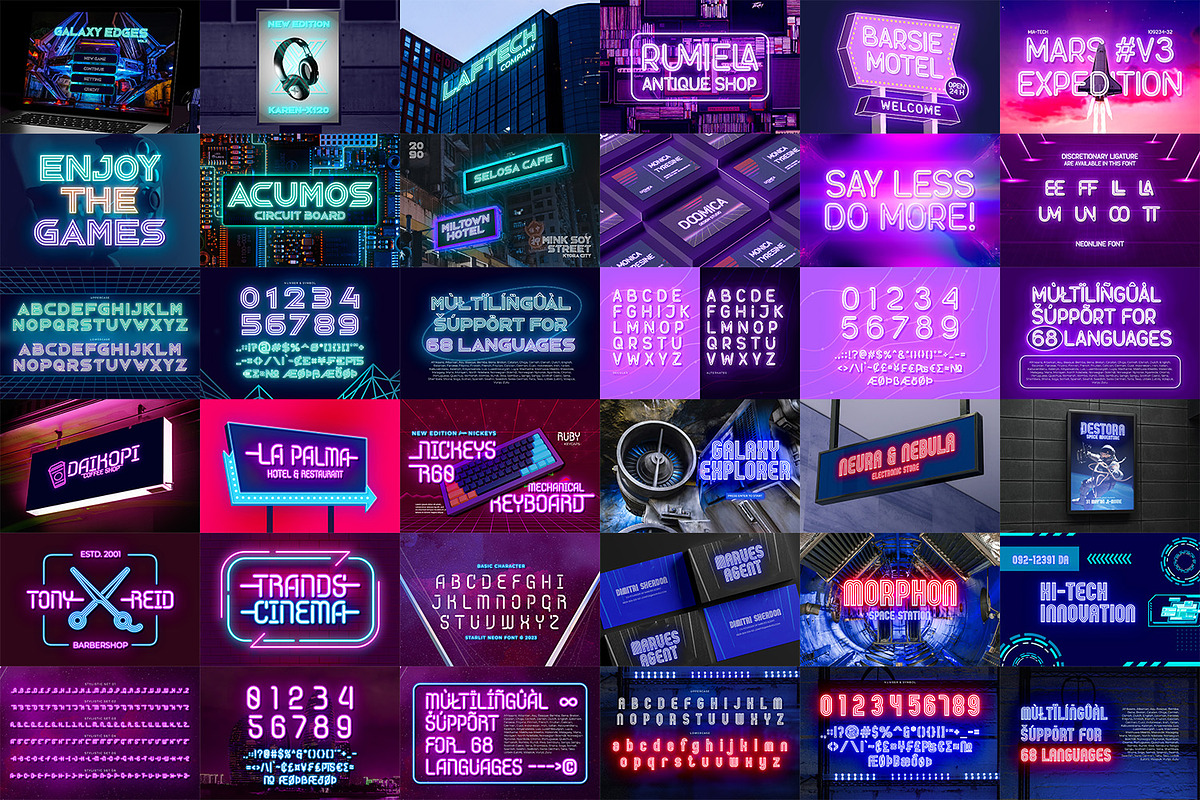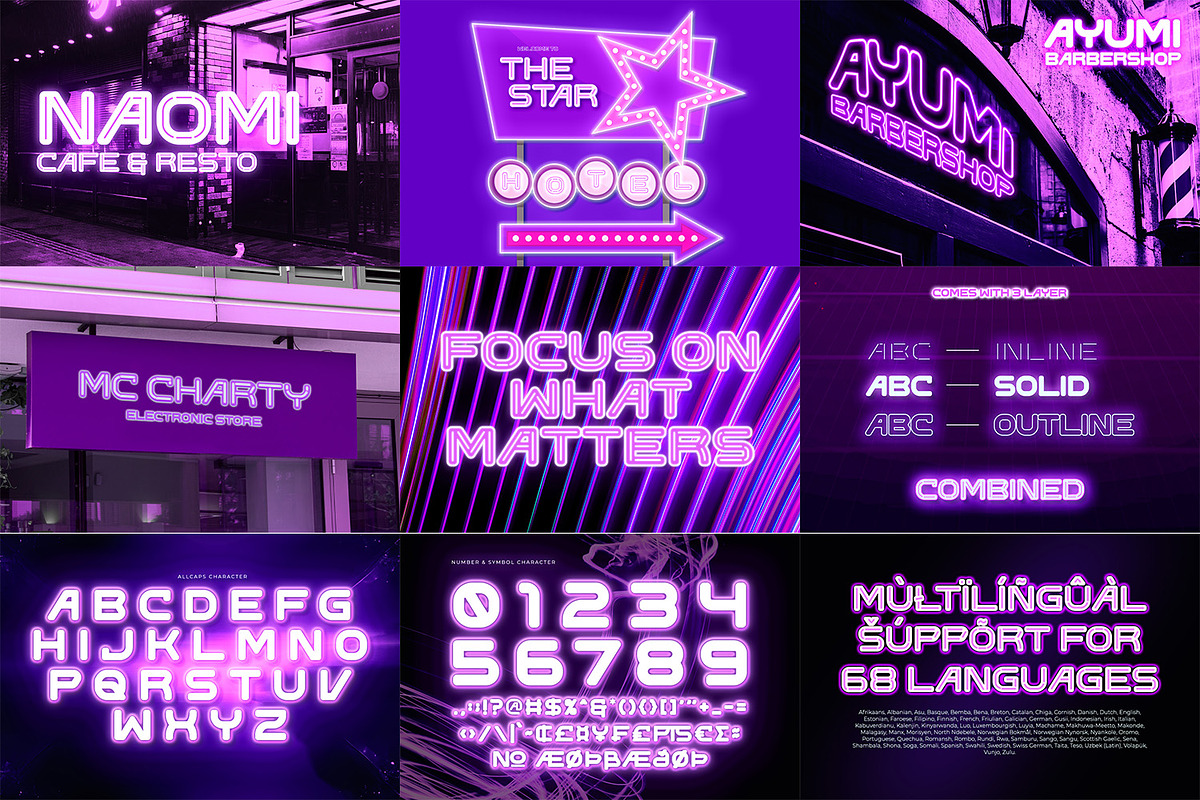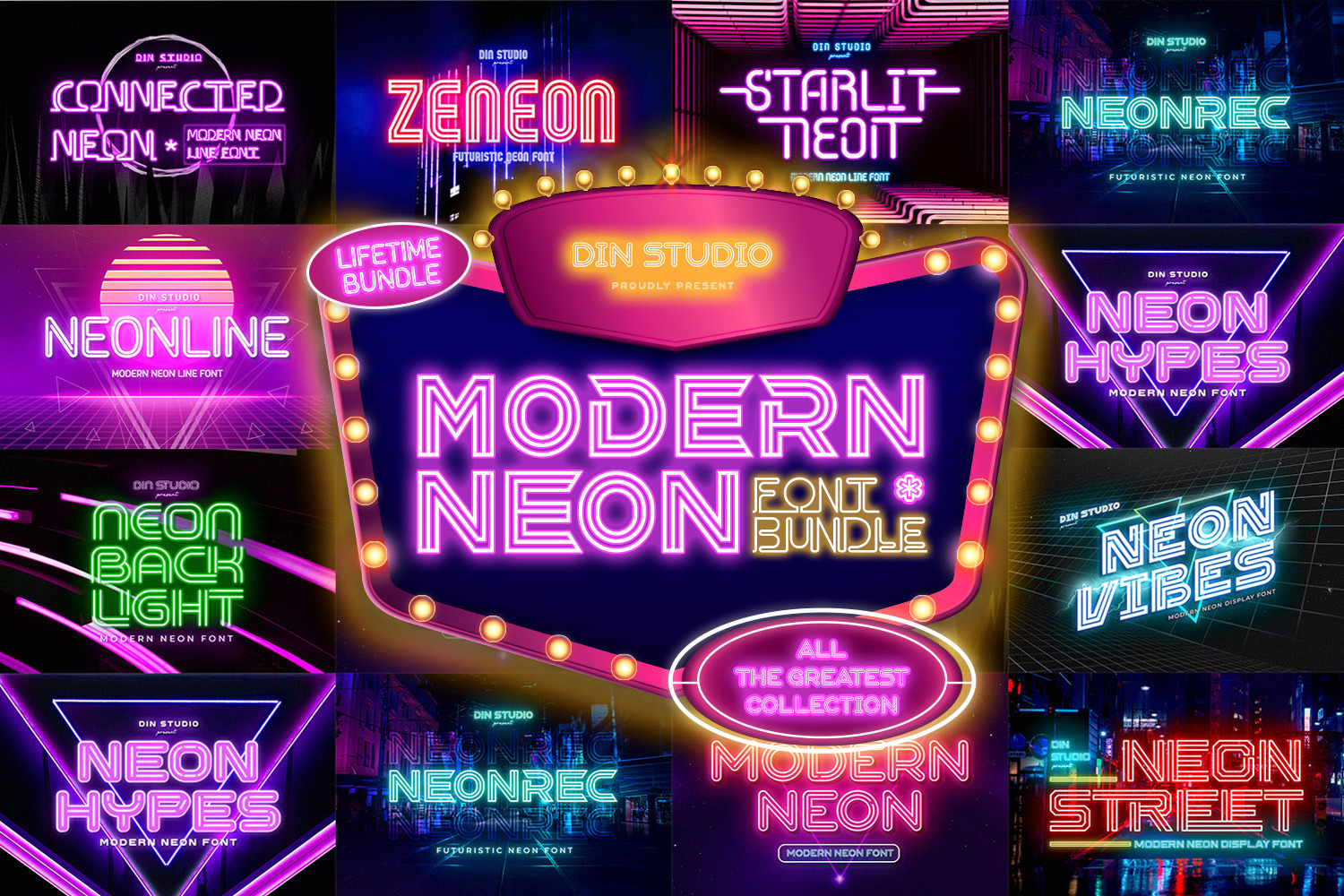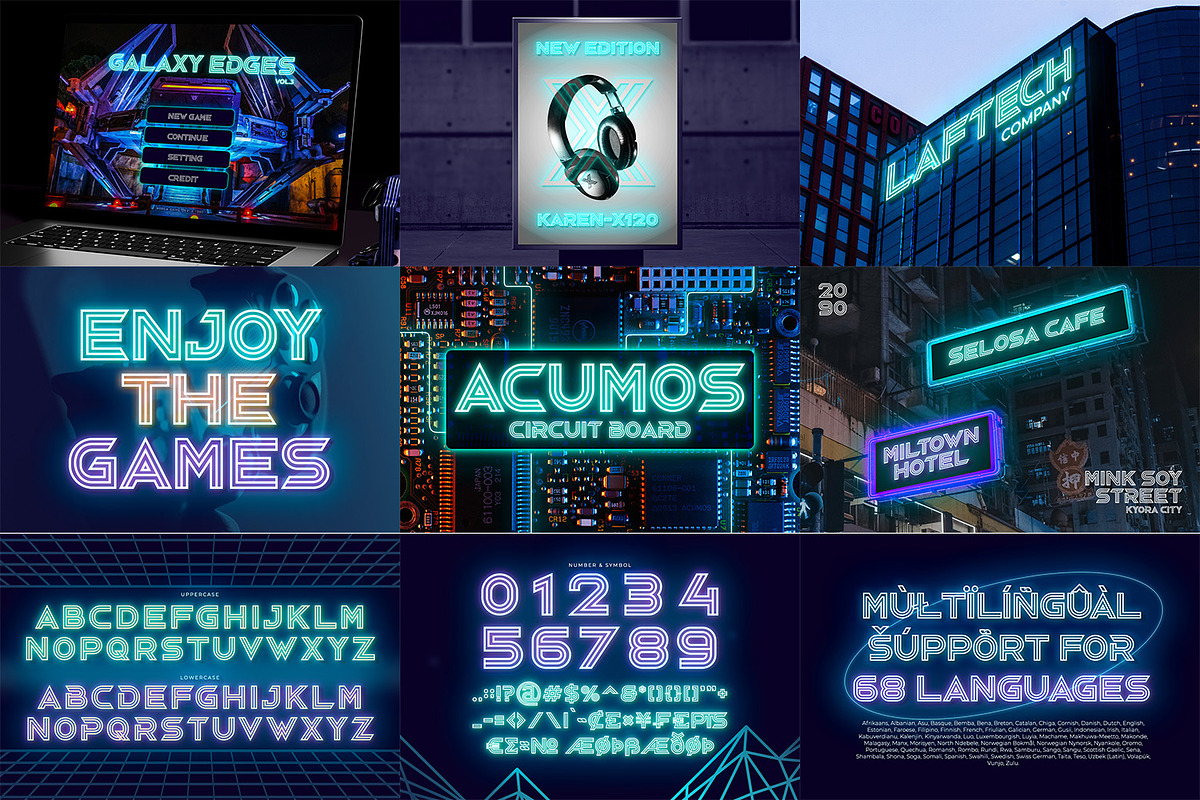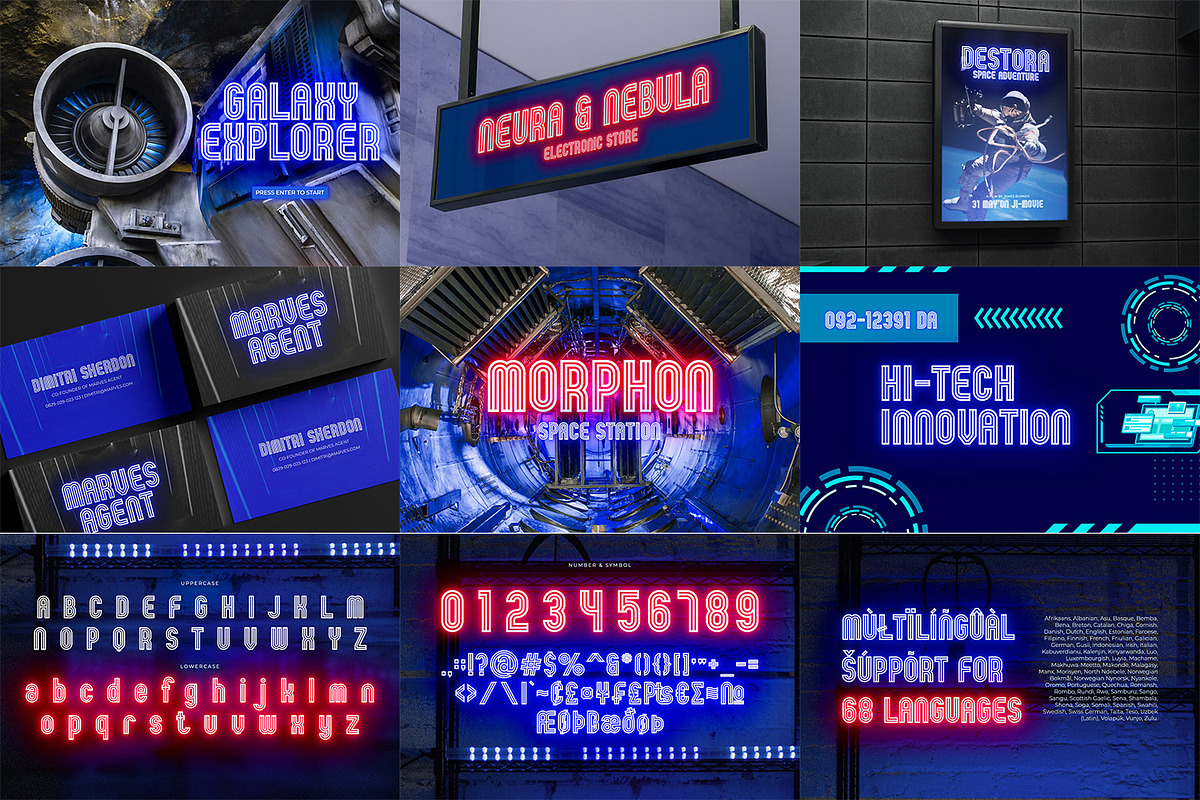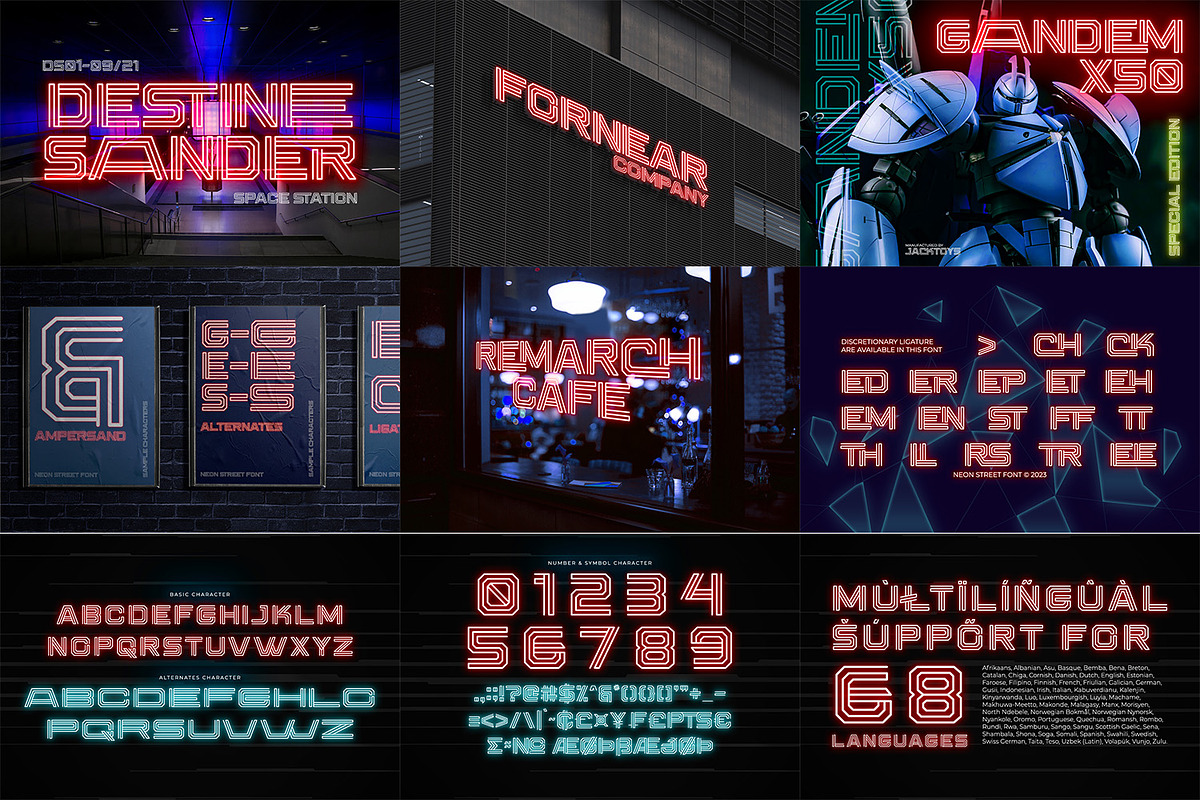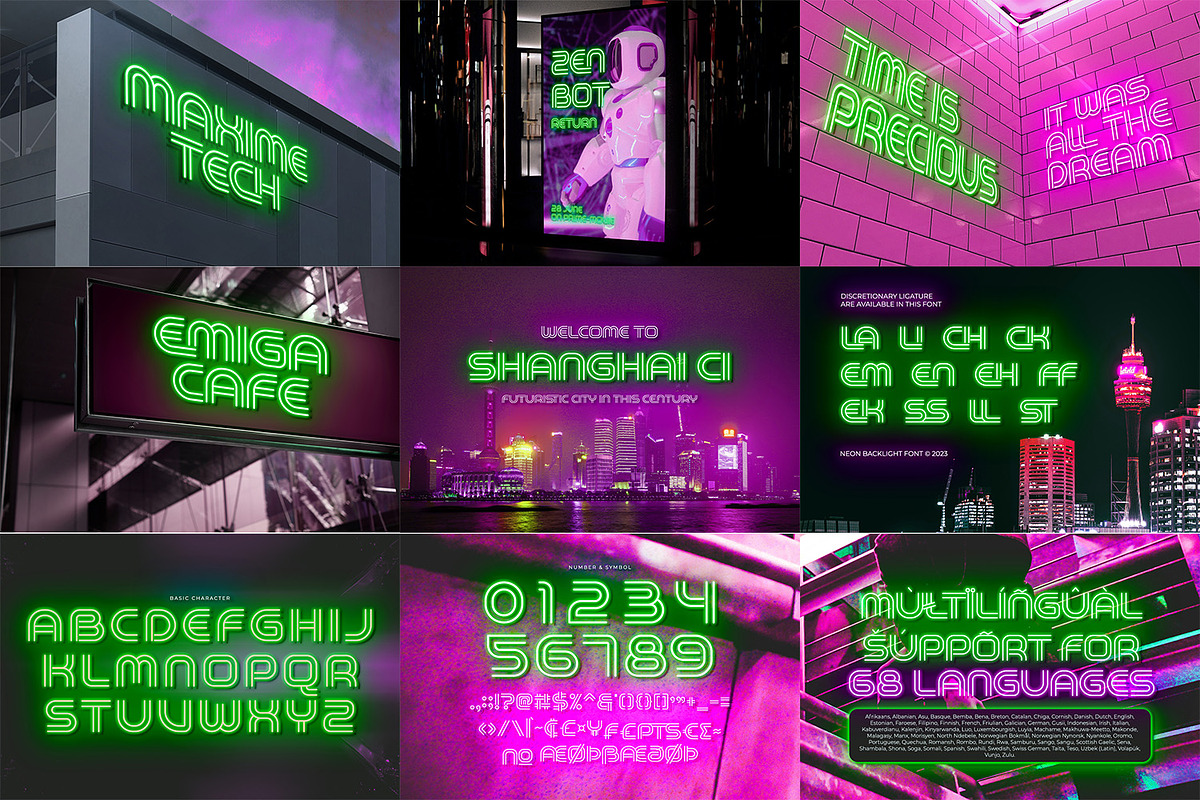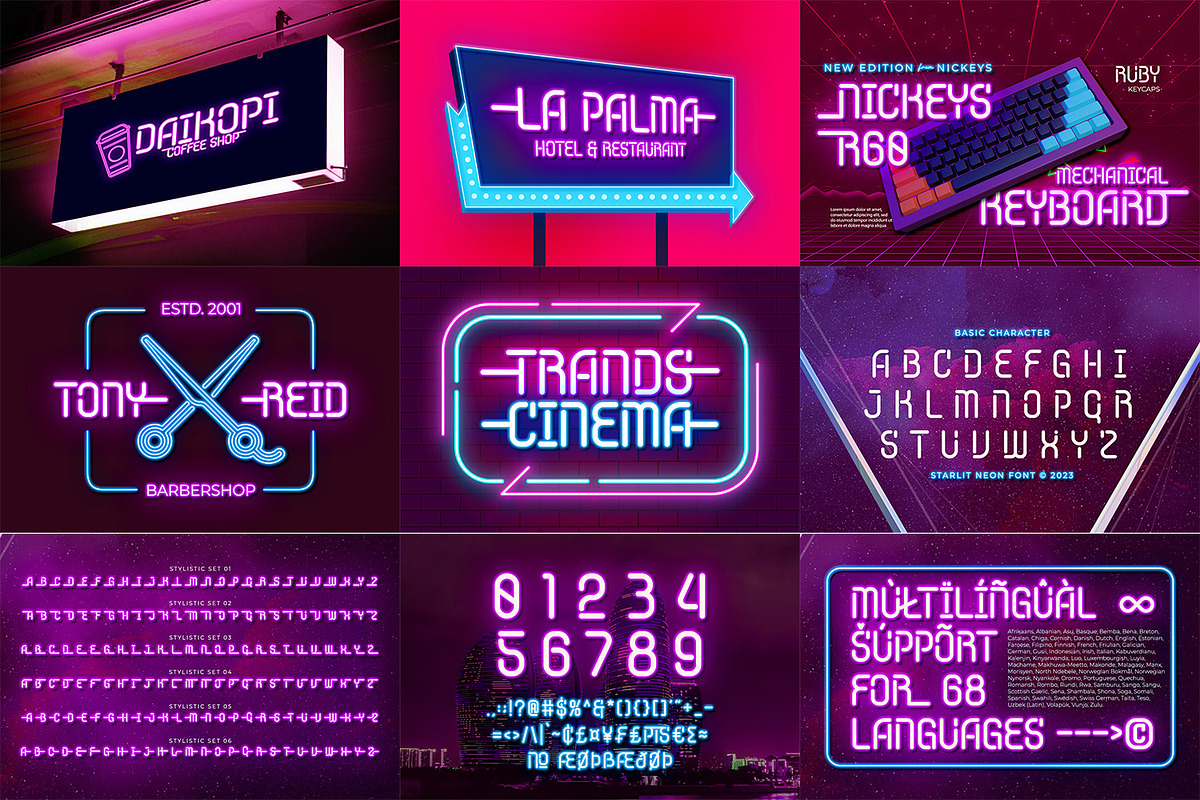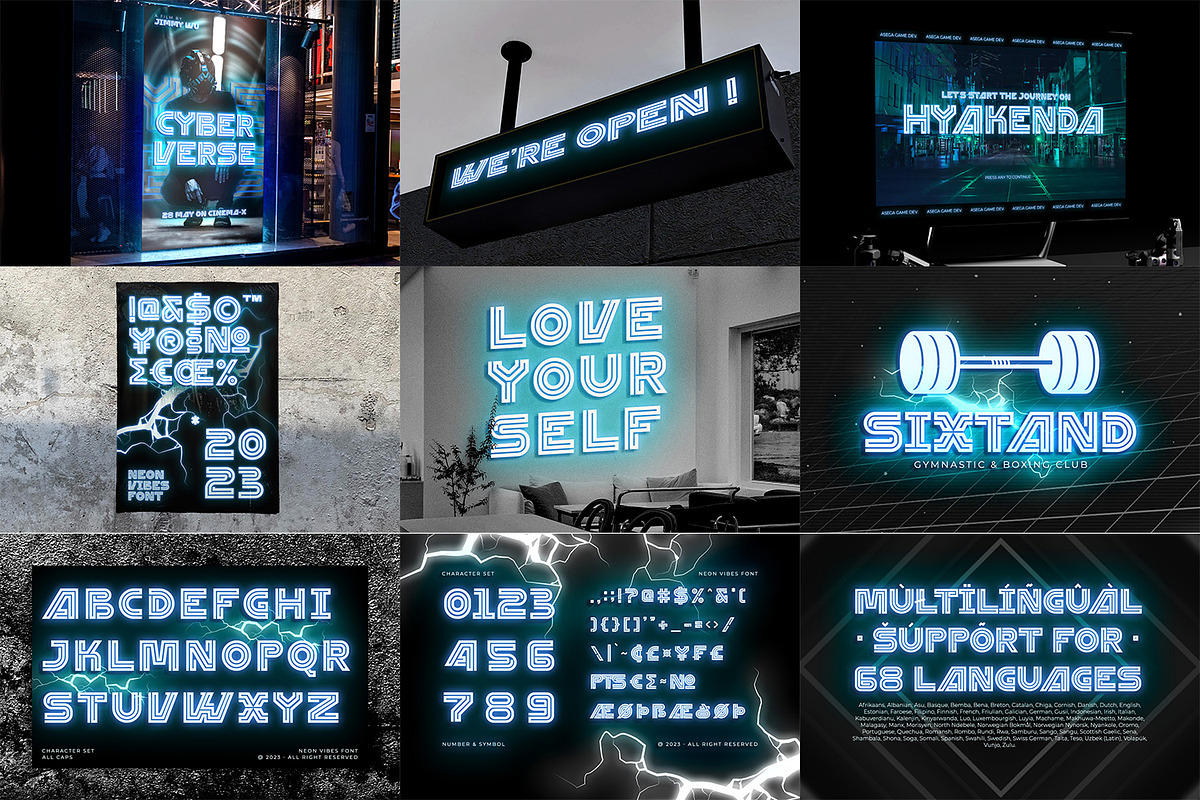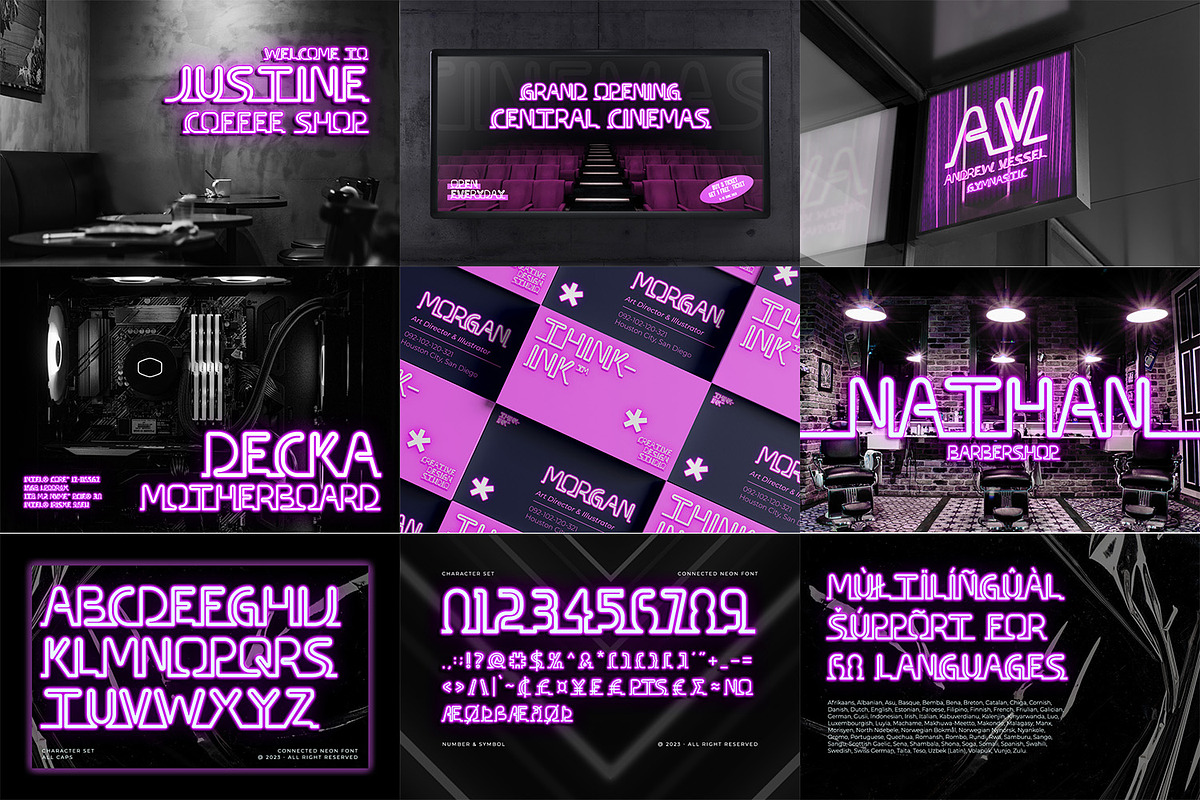
Modern Neon Font Bundle
Hello, Everyone! Introducing Modern Neon Font Bundle from Ditatype!
A vibrant aesthetic of neon signage for your design. Modern Neon Font Bundle consists of 10 fonts that have a modern style look. With its bold and modern style, the Modern Neon Font Bundle is perfect for projects that demand attention and convey a sense of cutting-edge sophistication. The fonts can be used for a host of different content needs and projects. Create gorgeous printed quotes, posters, standout packaging, or beautiful t-shirts! You can even use it to create amazing headings, titles logos, and social media graphics.
The fonts include full set of character and glyph and it also includes Multilingual Support to help you reach a global audience. See the previews above to get some inspiration on how you can use them.
Fonts include are :